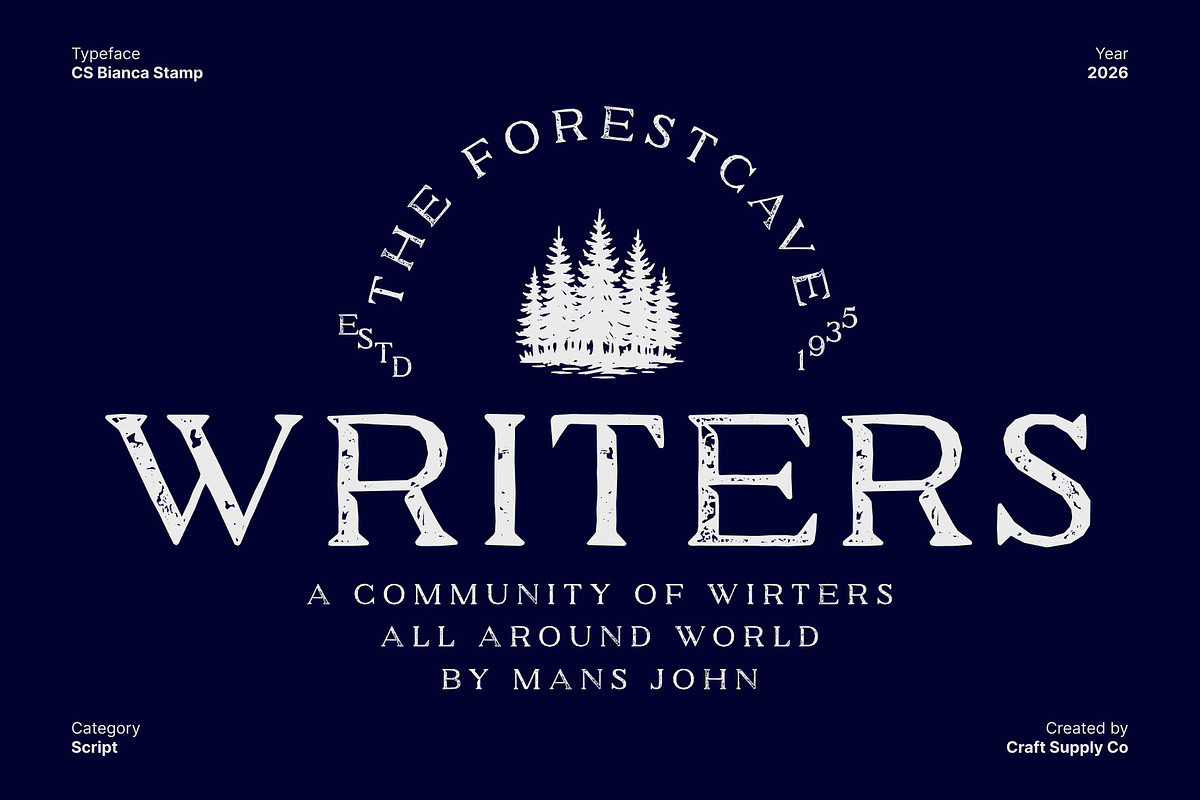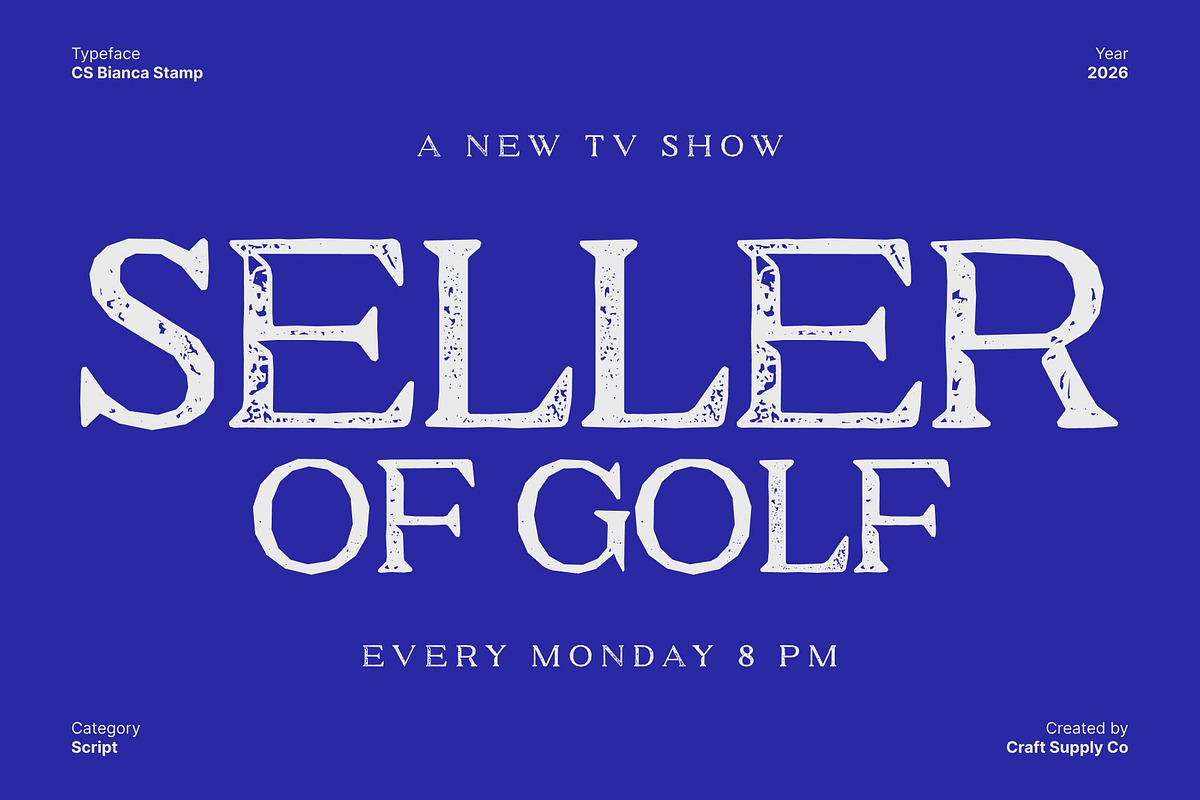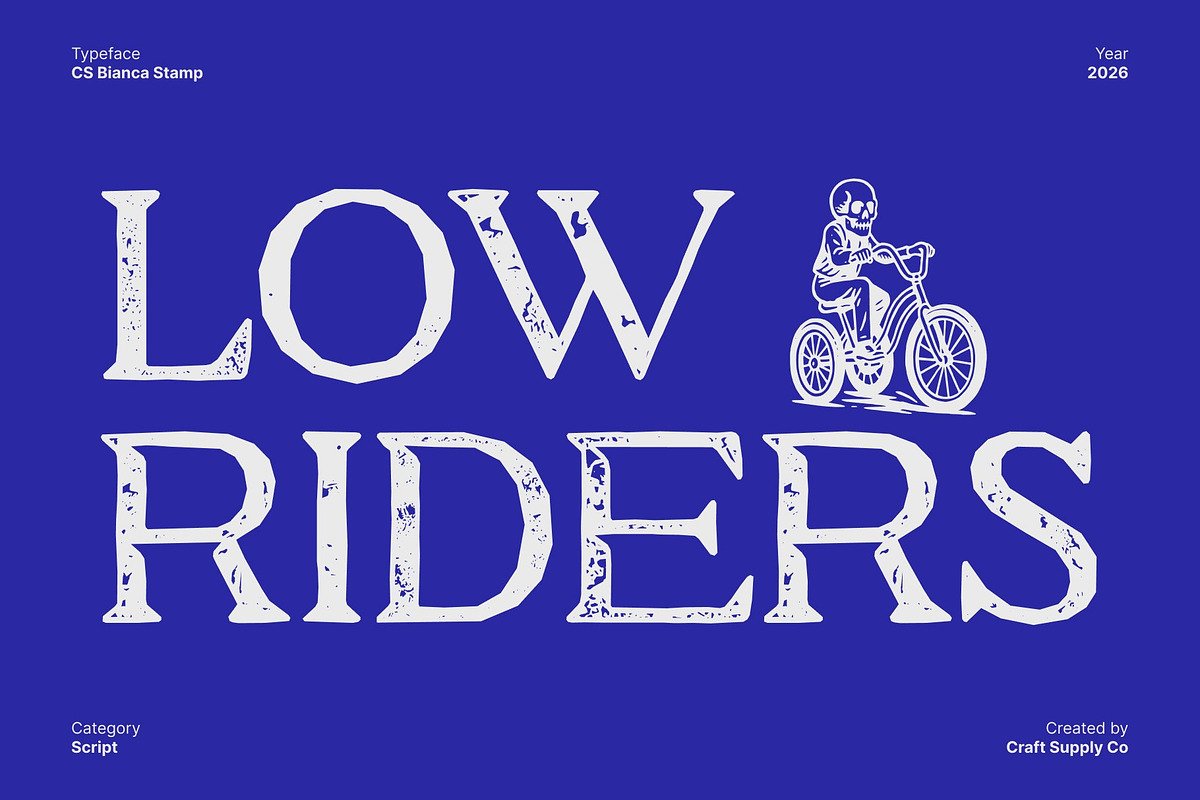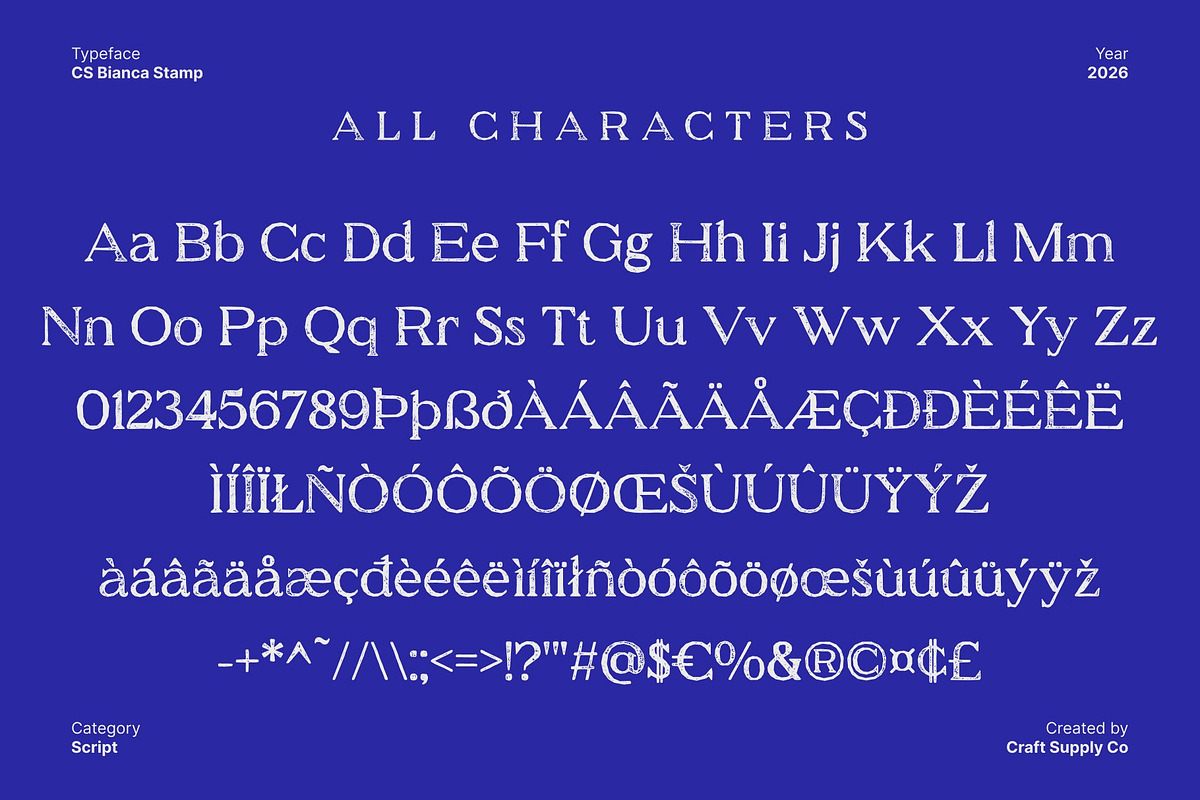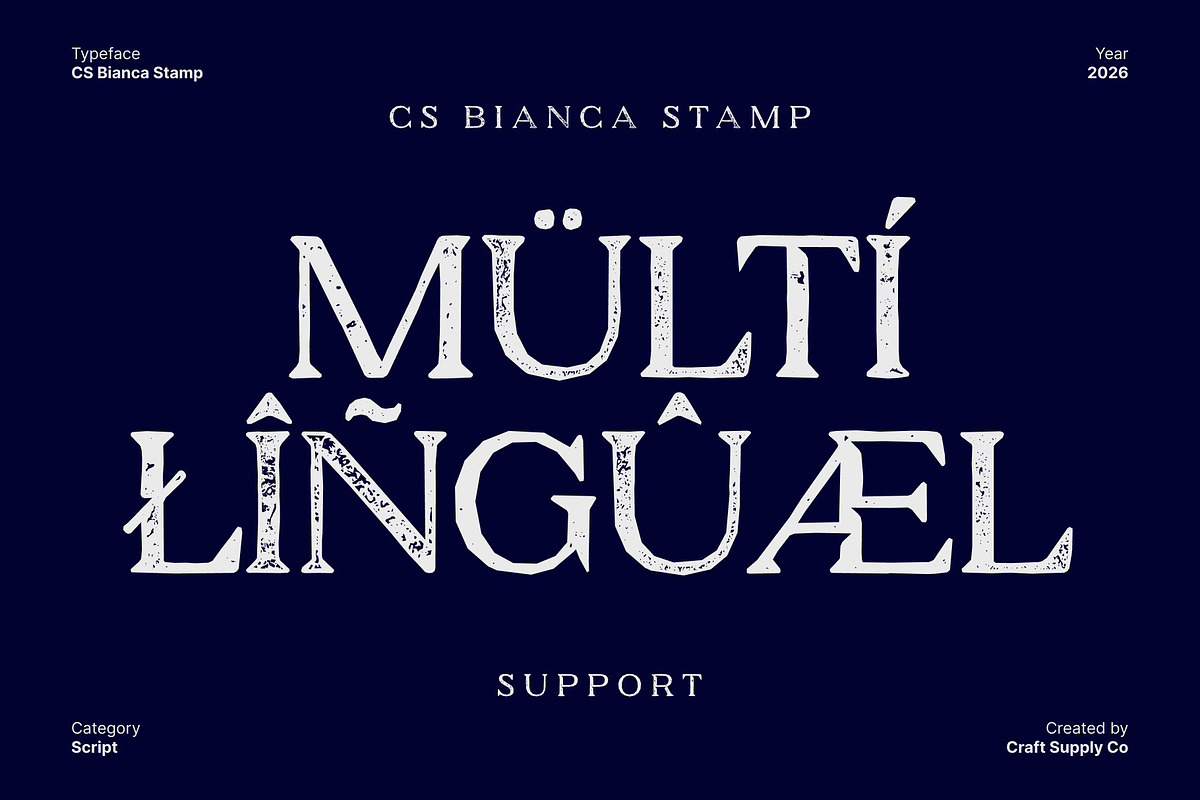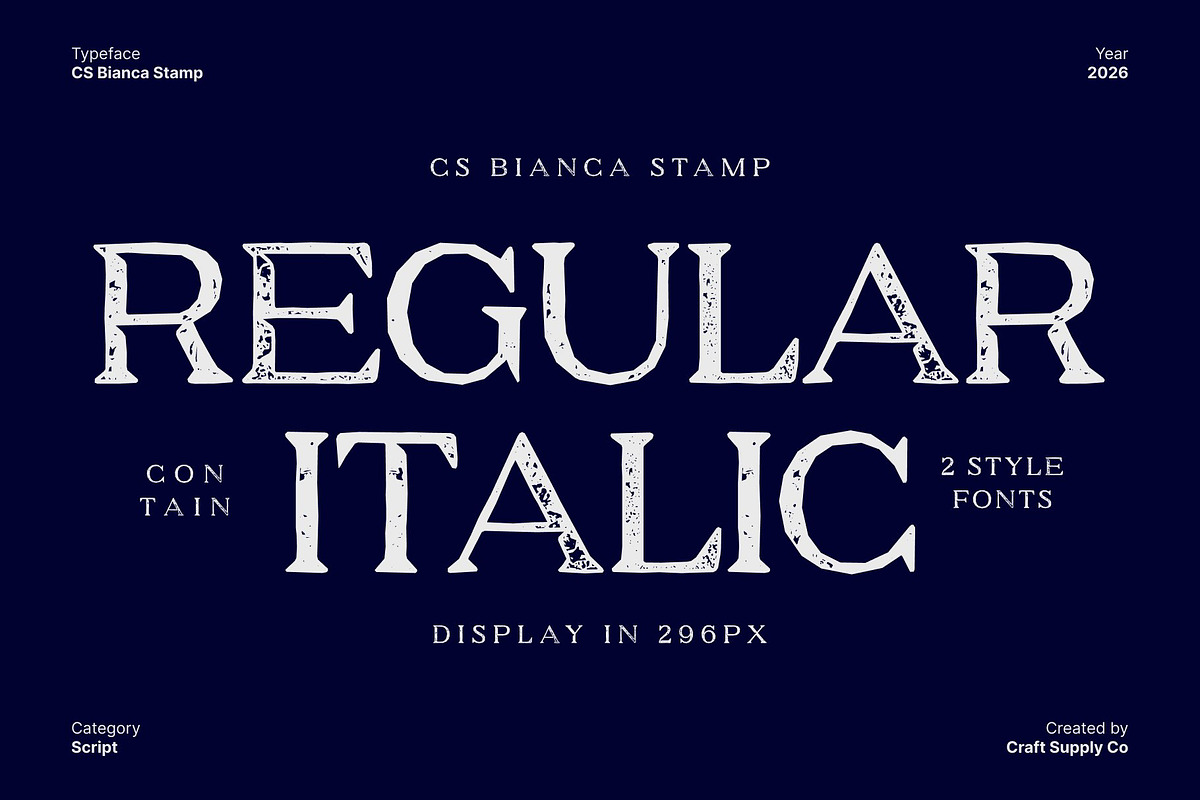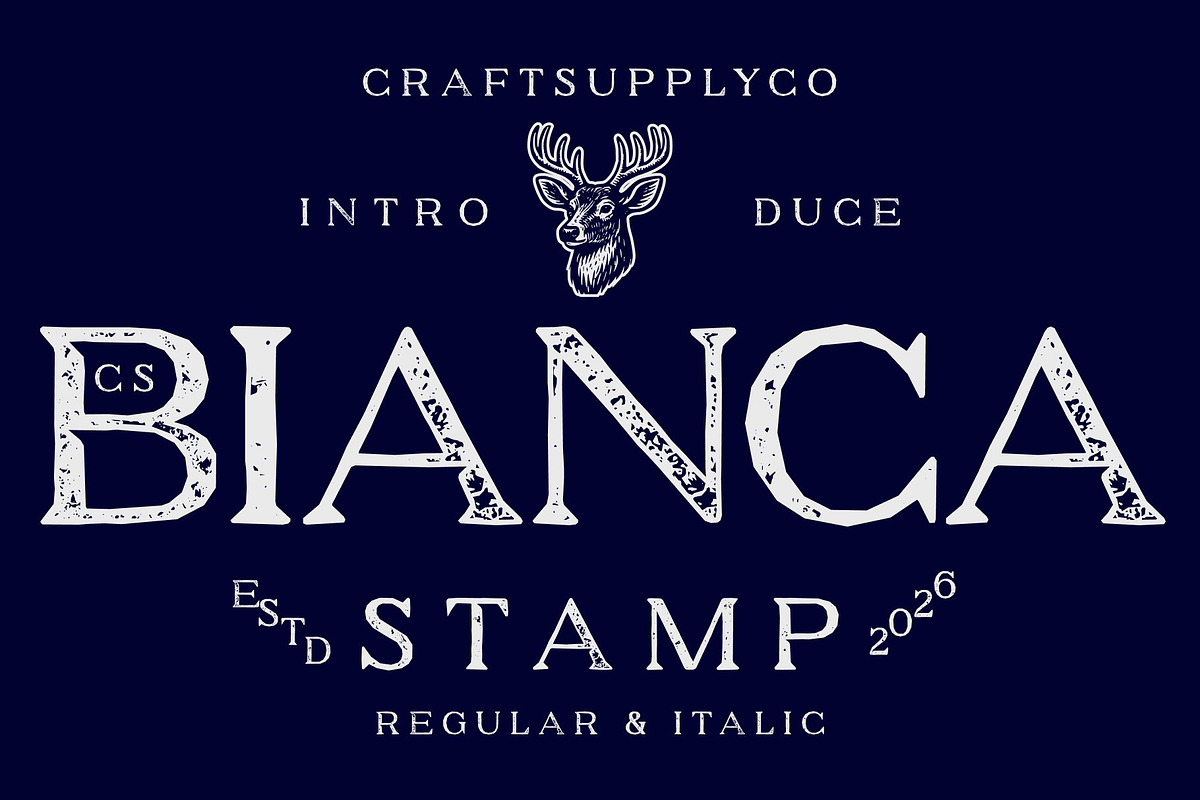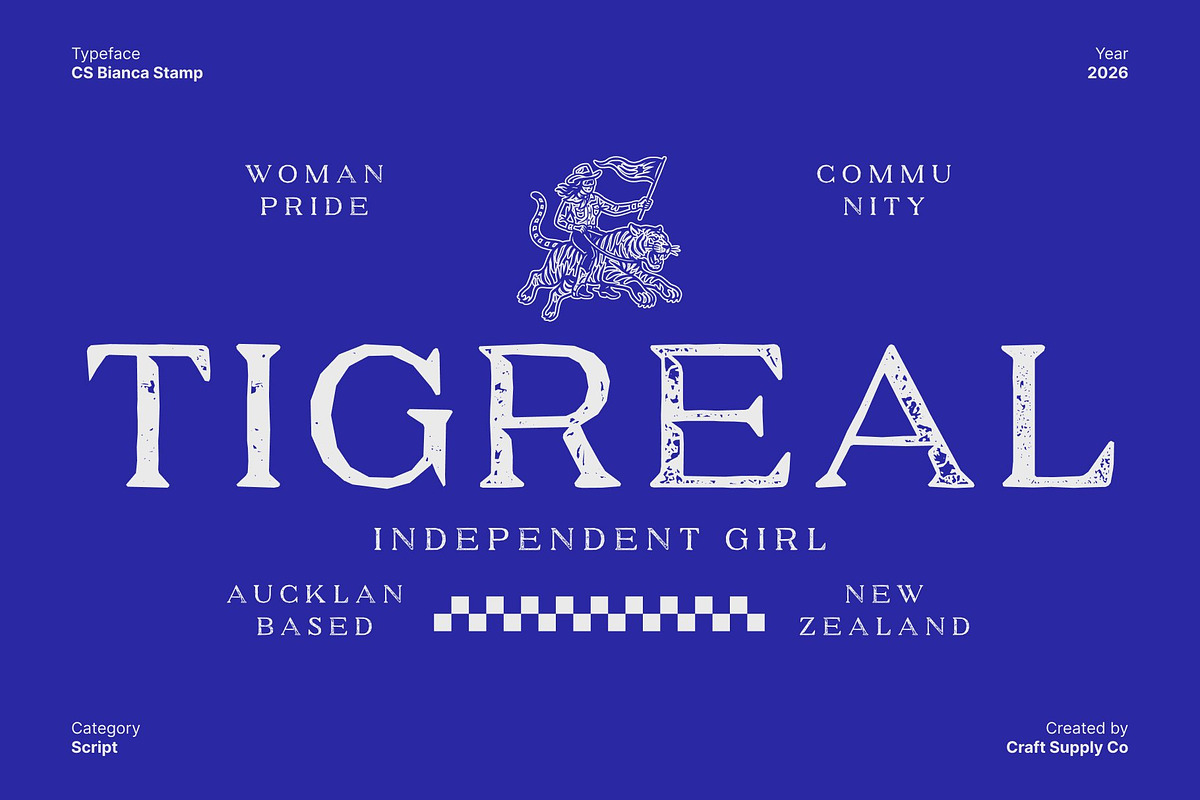
CS Bianca Stamp
CS Bianca Stamp – Serif Typeface: Timeless Elegance with a Textured Modern Twist
Classic and Modern Fusion with Stamped Character This is a modern serif typeface that gracefully blends classic sophistication with contemporary clarity. Its refined structure delivers a timeless impression, while the added stamp effect introduces subtle texture and gentle imperfections. This stamped finish adds an old-style printed character, enriching the font with warmth and artistic depth without sacrificing its clean, modern appeal.
Ideal for Corporate, Editorial, and Graphic Designs Perfect for corporate projects that demand professionalism and luxury, this font enhances branding, editorial layouts, and refined graphic designs. The textured serif details bring a sense of heritage and authenticity, making the font feel more tactile and expressive across both print and digital media.
Versatile and Sophisticated with Vintage Depth Designed for versatility, adapts effortlessly to a wide range of applications from logos and packaging to editorial spreads and digital content. Its balance of classic serif charm, contemporary refinement, and vintage stamped texture makes it a reliable choice for designers seeking elegance, readability, and timeless visual impact.
CS Bianca Stamp Regular
CS Bianca Stamp Italic